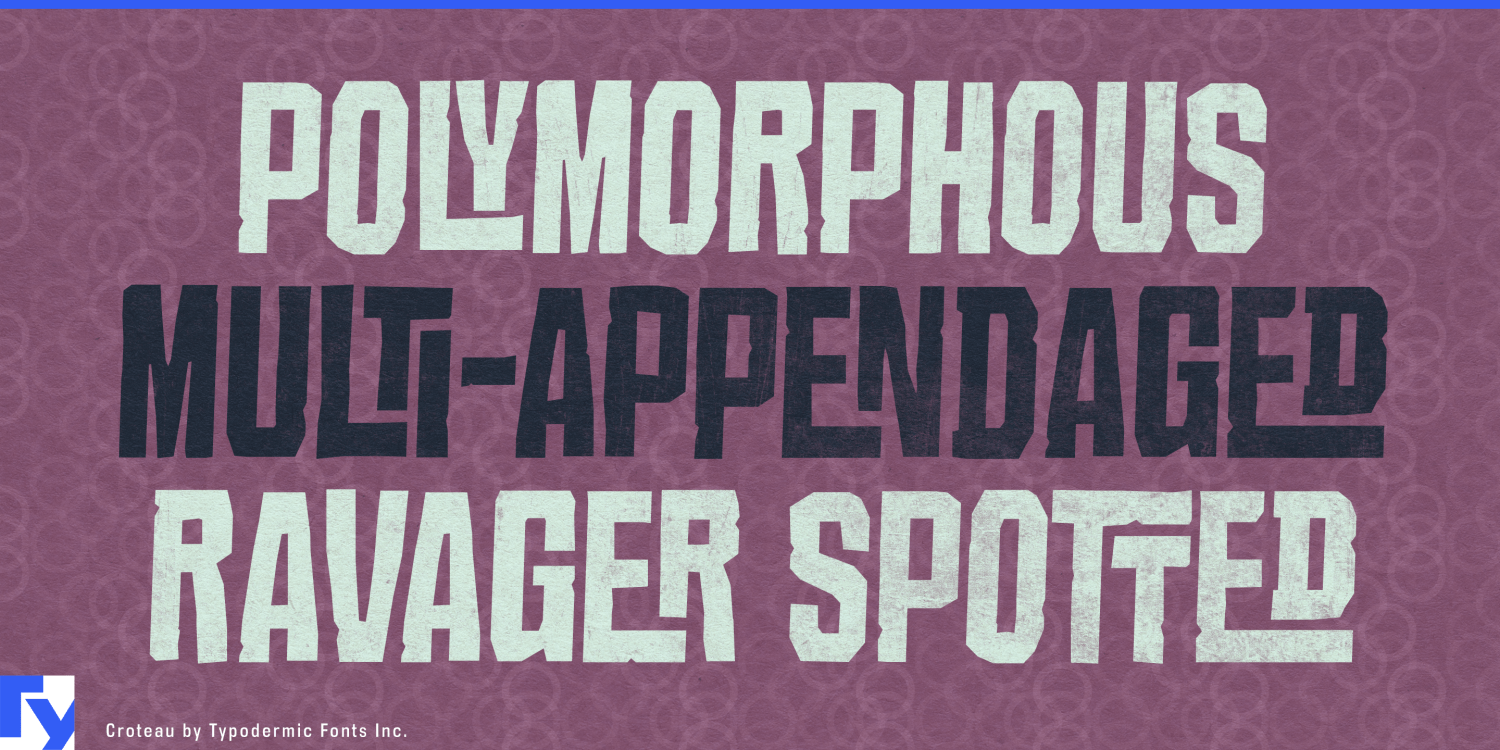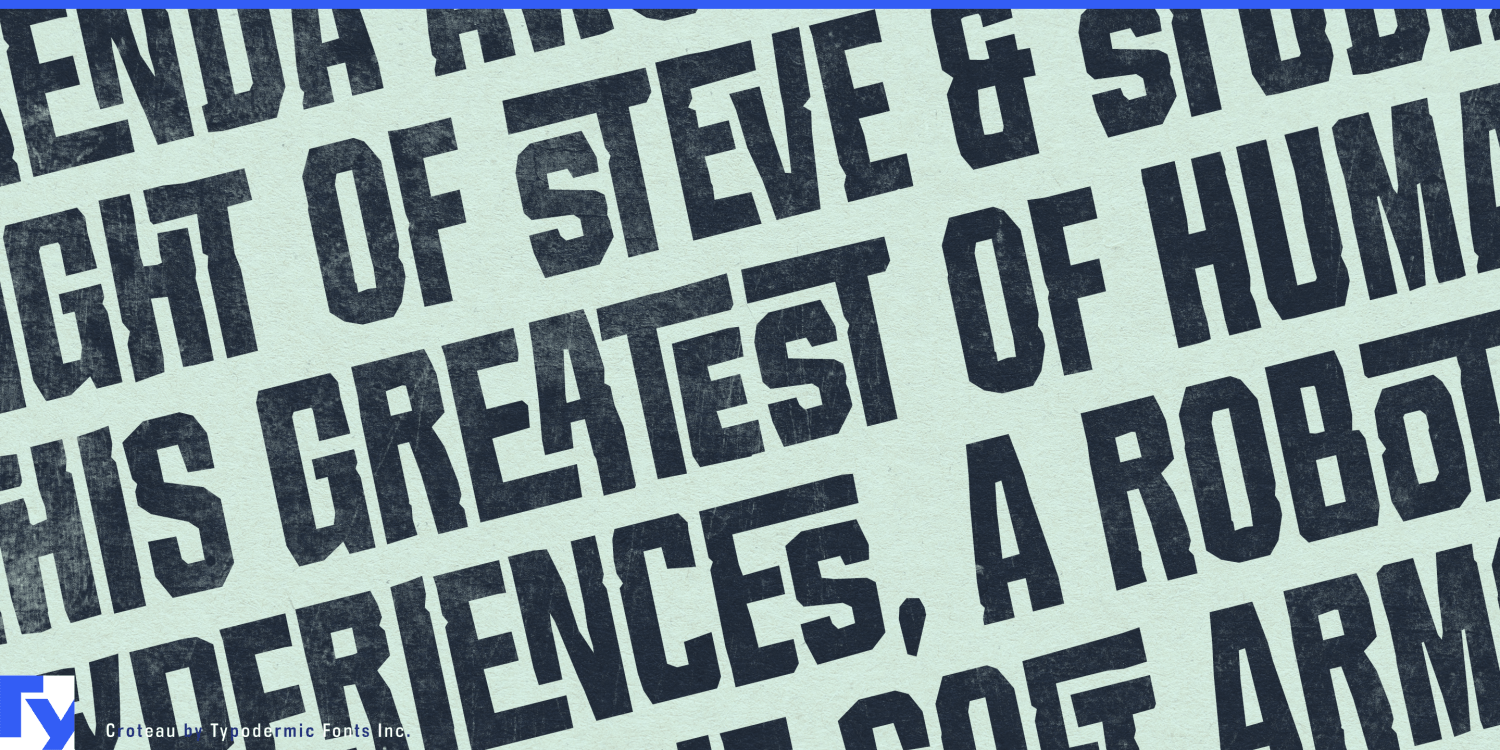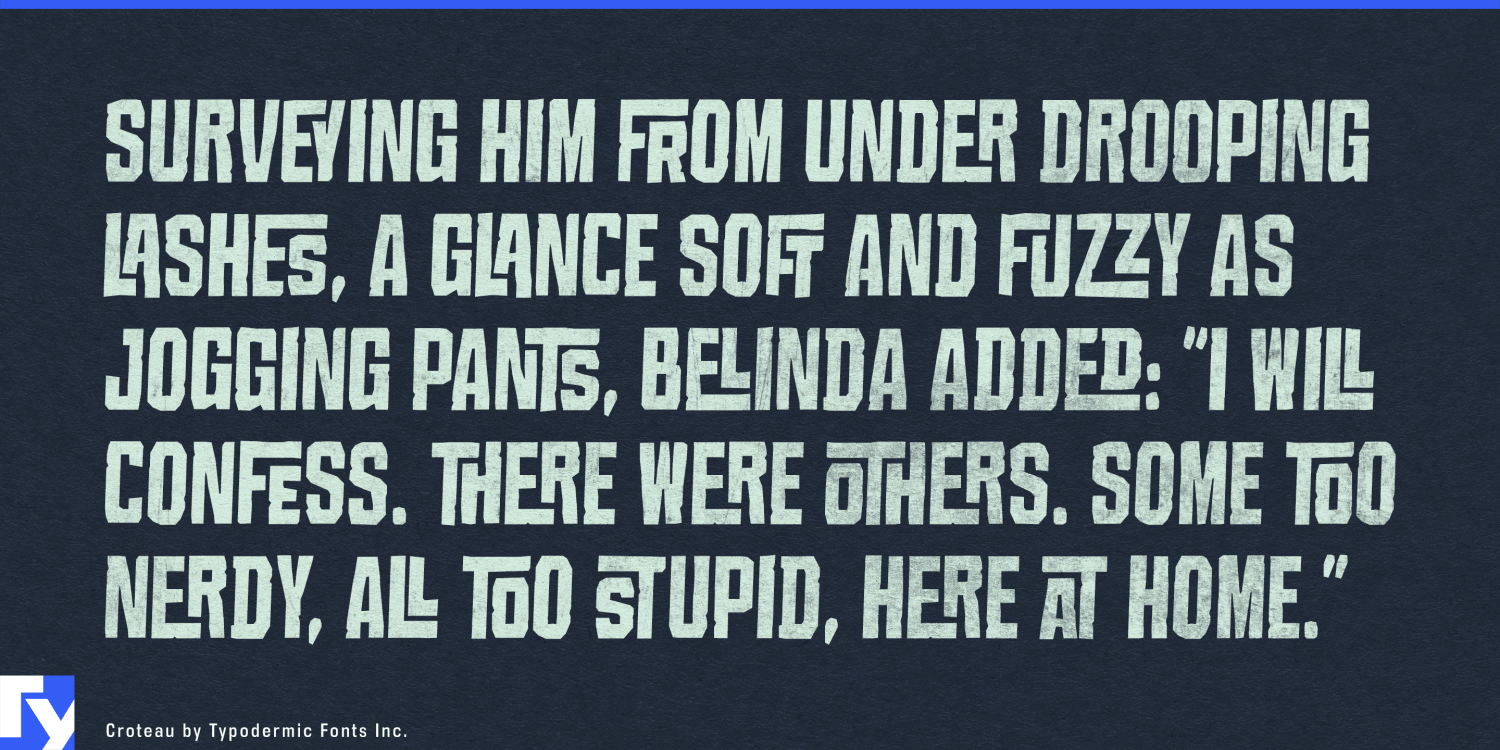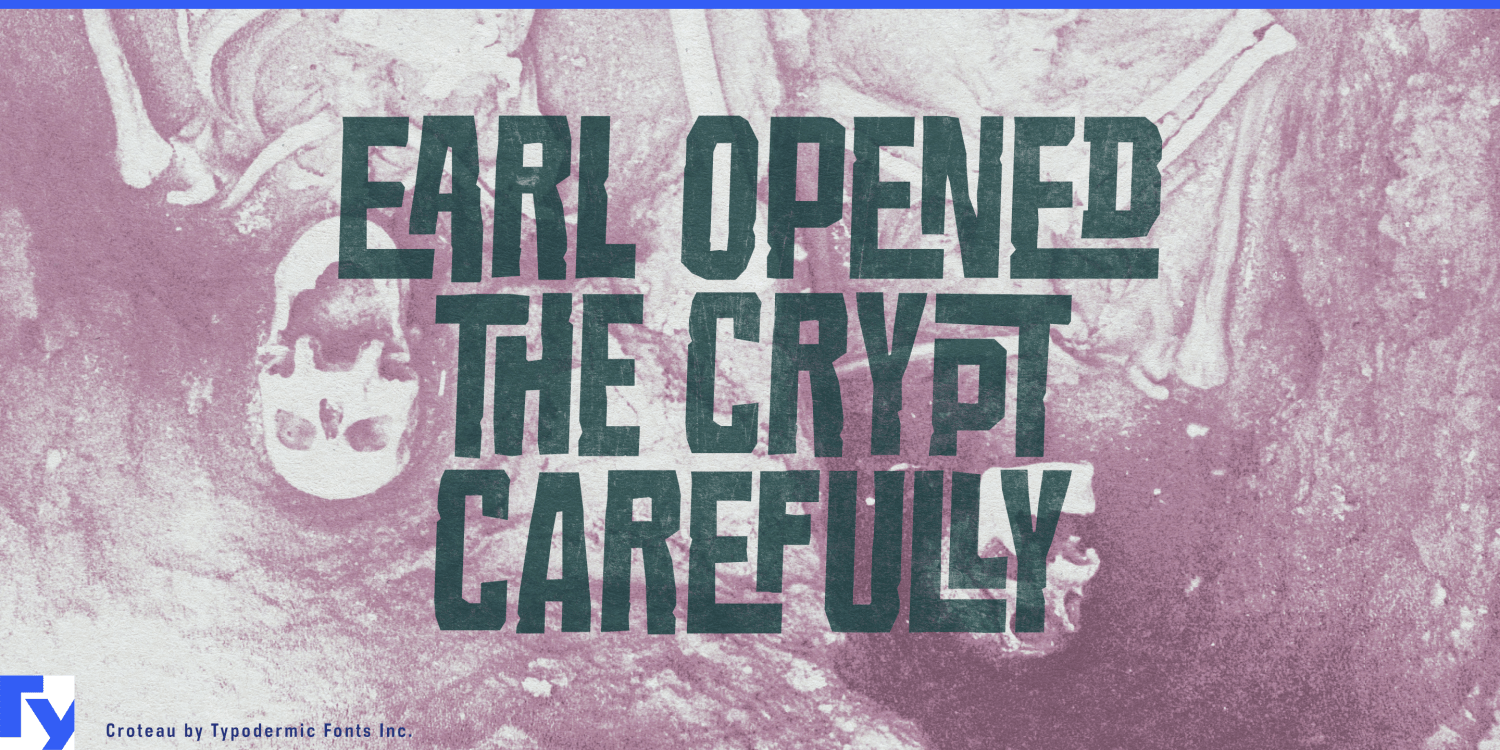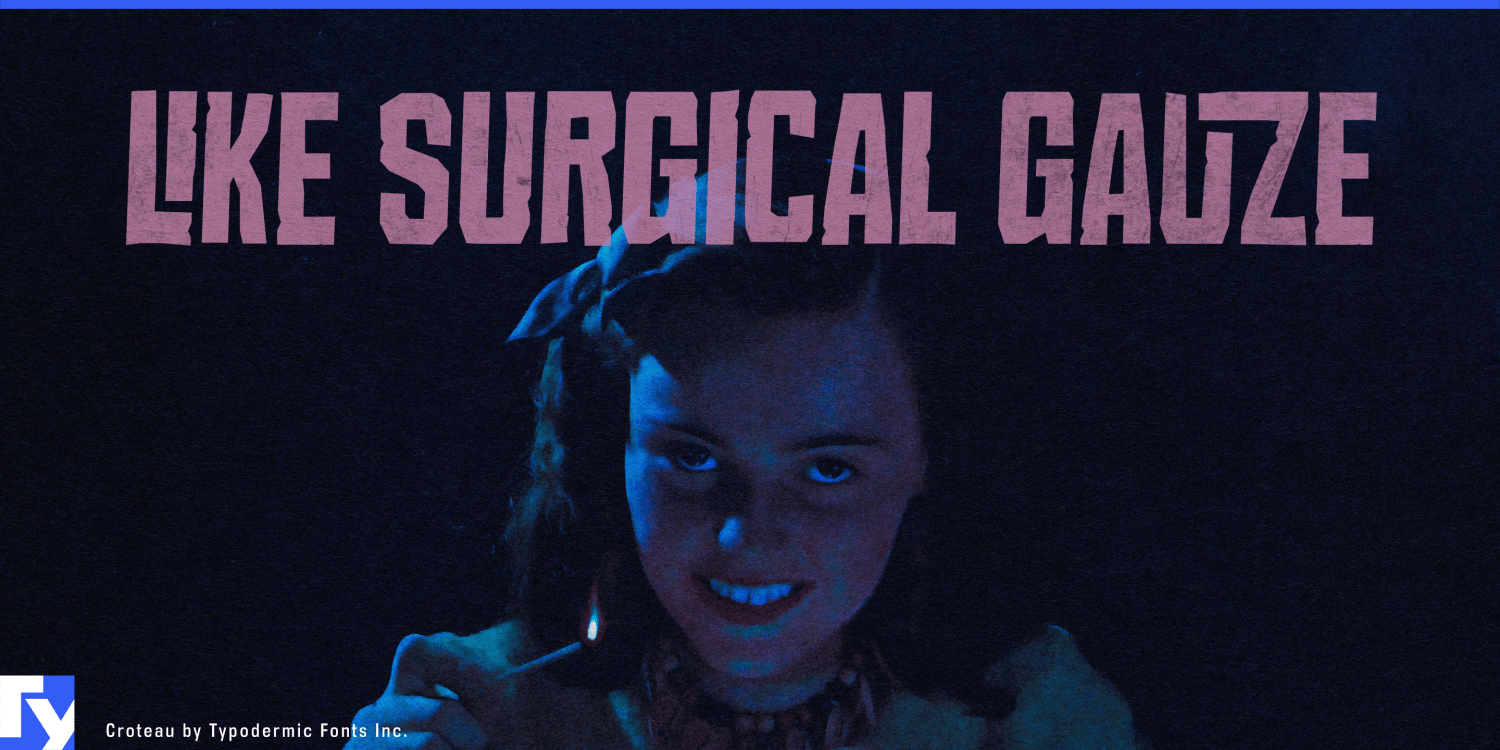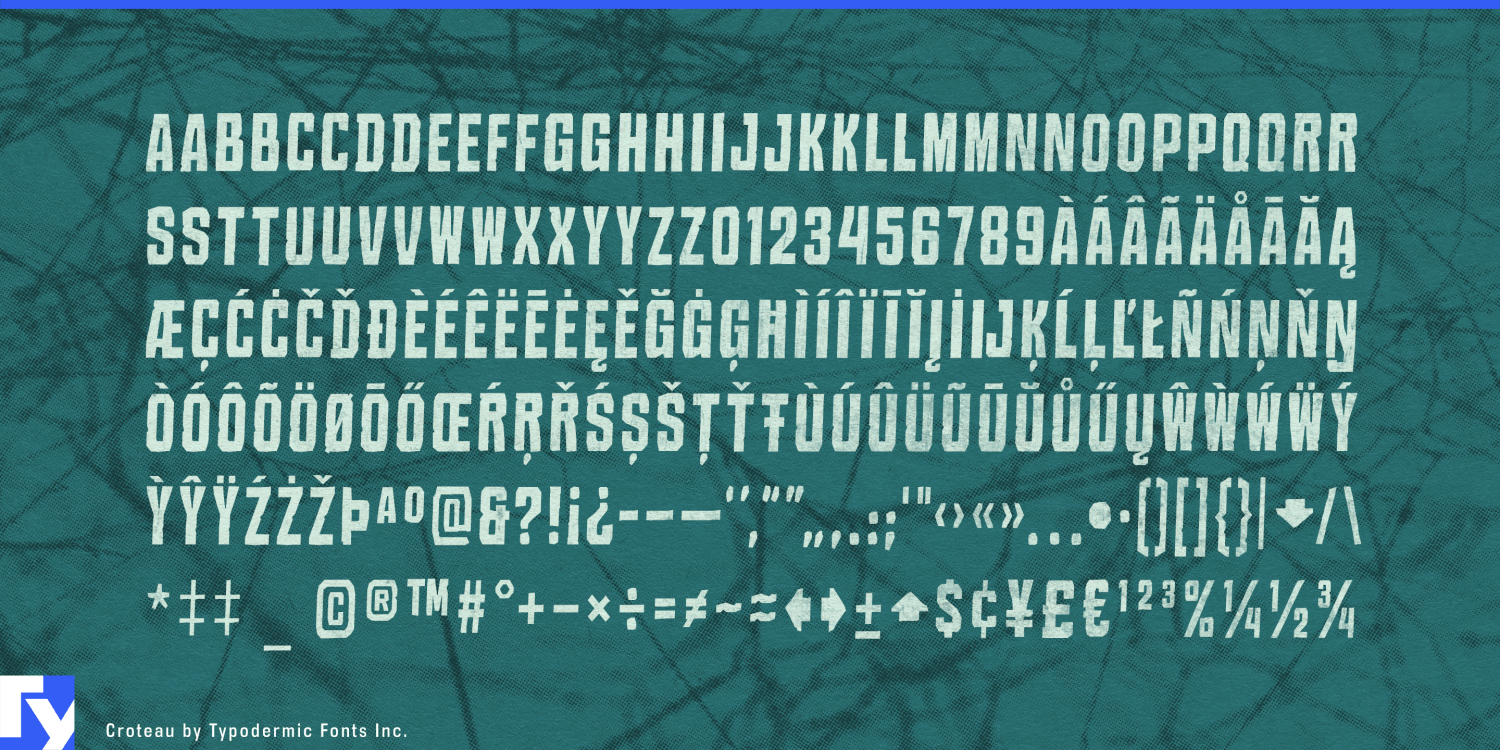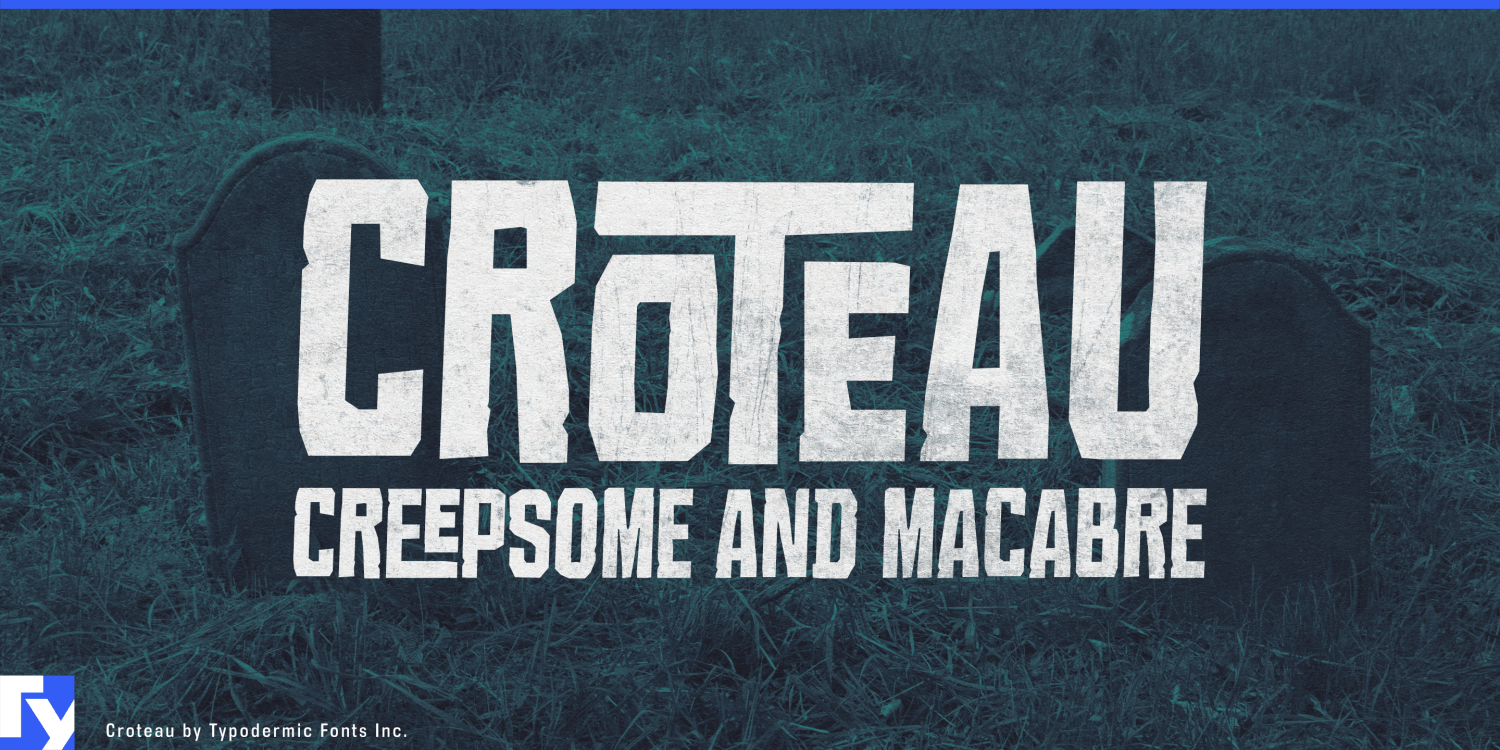
Step into the shadows with Croteau, a typeface that doesn’t just flirt with darkness—it embraces it with open arms. Born from the nightmarish visions of 1960s horror cinema, Croteau isn’t just a font; it’s an experience that will…